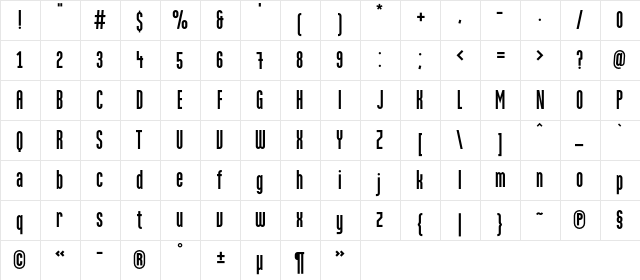
MartenCyr Grotesque Regular
Design Context for MartenCyr Grotesque Typeface
MartenCyr Grotesque takes a measured approach to typography — its balanced proportions and neutral character make it a reliable workhorse for both digital and print work.
Pro Tip: Use MartenCyr Grotesque in both headline and body roles to test its range before committing to a single application.